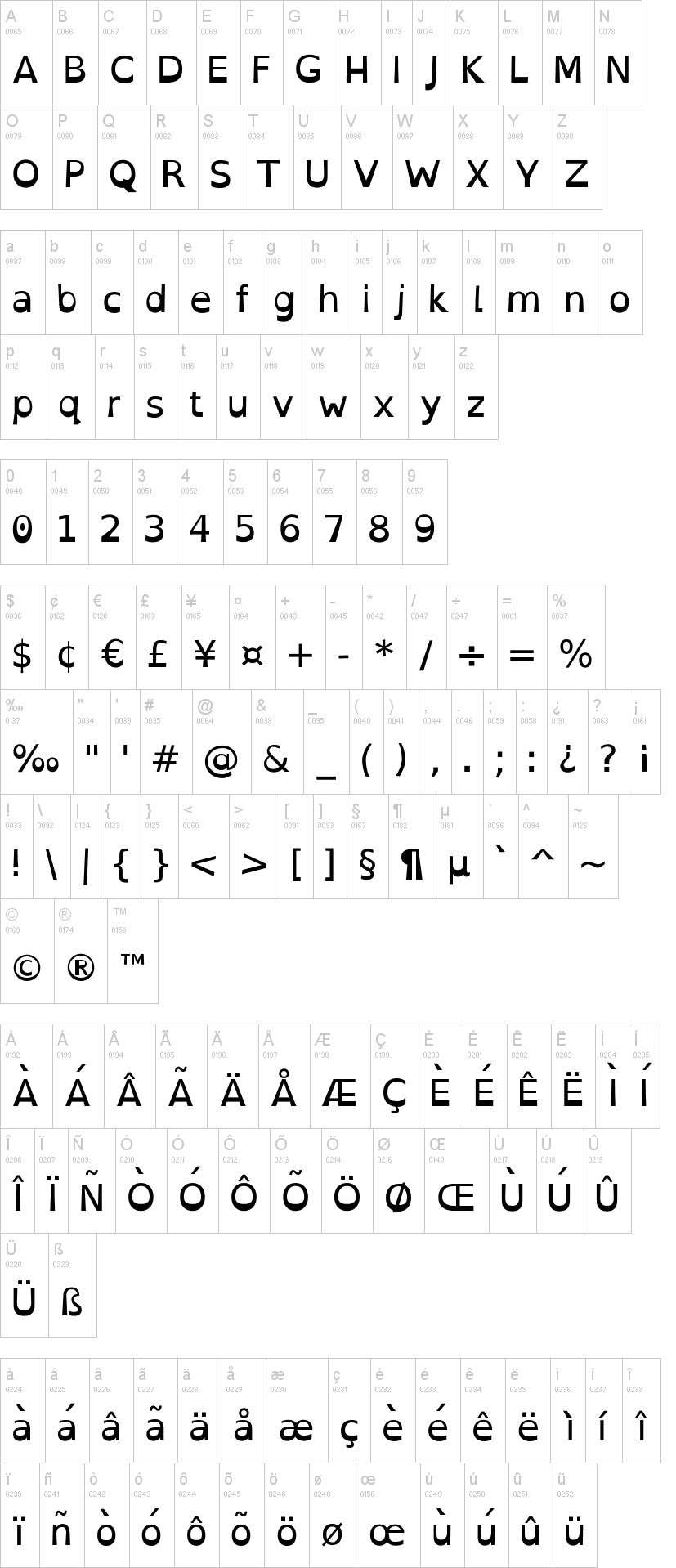
OpenDyslexic-Italic.otfOpenDyslexic-Bold.otfOpenDyslexic-BoldItalic.otfOpenDyslexicAlta-Bold.otfOpenDyslexicAlta-BoldItalic.otfOpenDyslexicAlta-Regular.otfOpenDyslexicAlta-Italic.otfOpenDyslexicMono-Regular.otfNote of the authorFont created to help dyslexic readers. Bottom heavy and unique character shapes help make it more difficult to confuse letters.
Included are 3 styles of OpenDyslexic: OpenDyslexic, OpenDyslexic w/ alt rounded a's, and OpenDyslexicMono: for your fixed-width font needs.